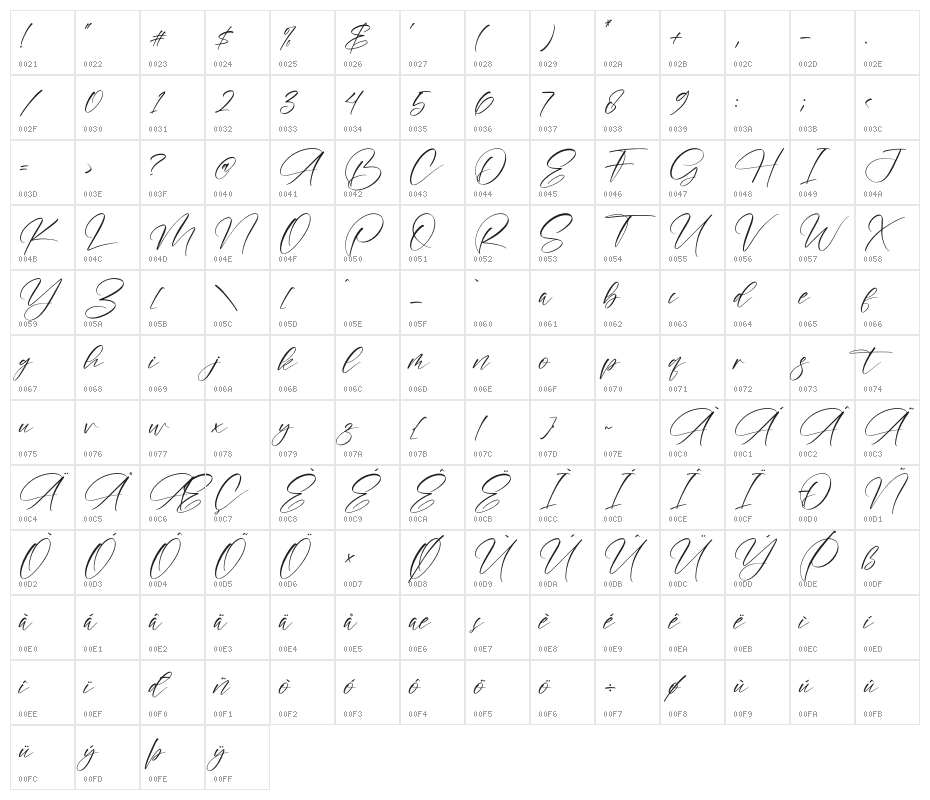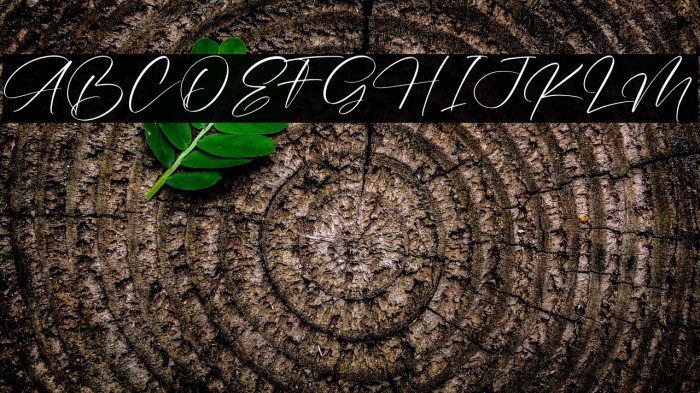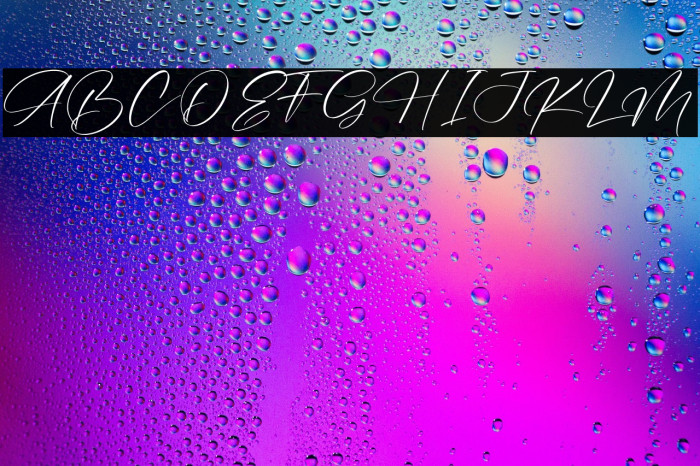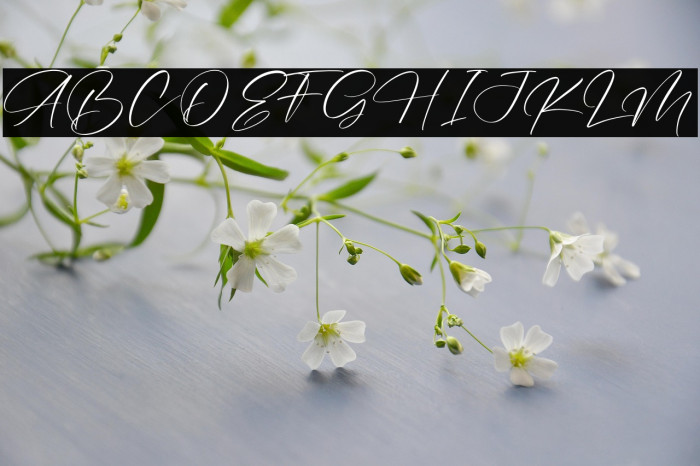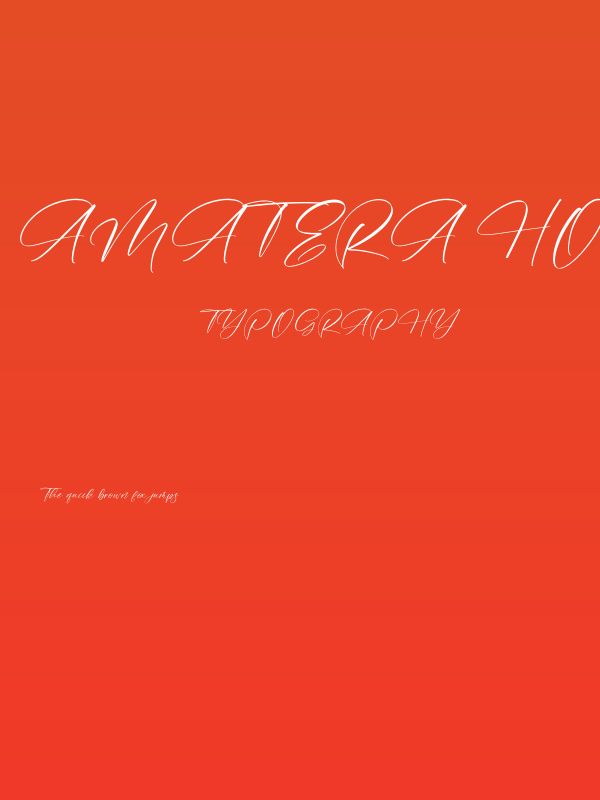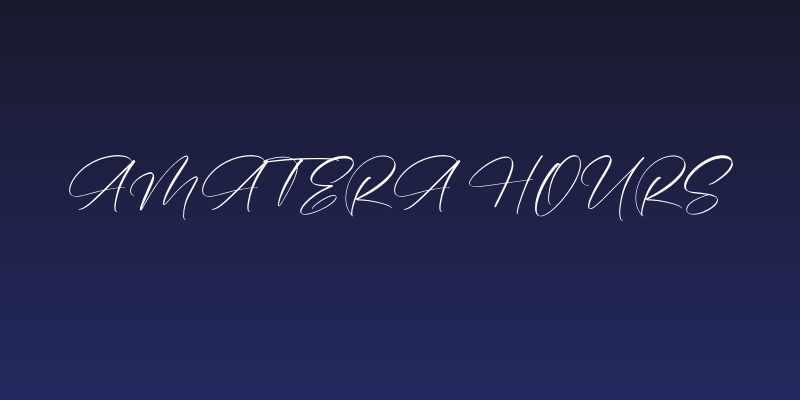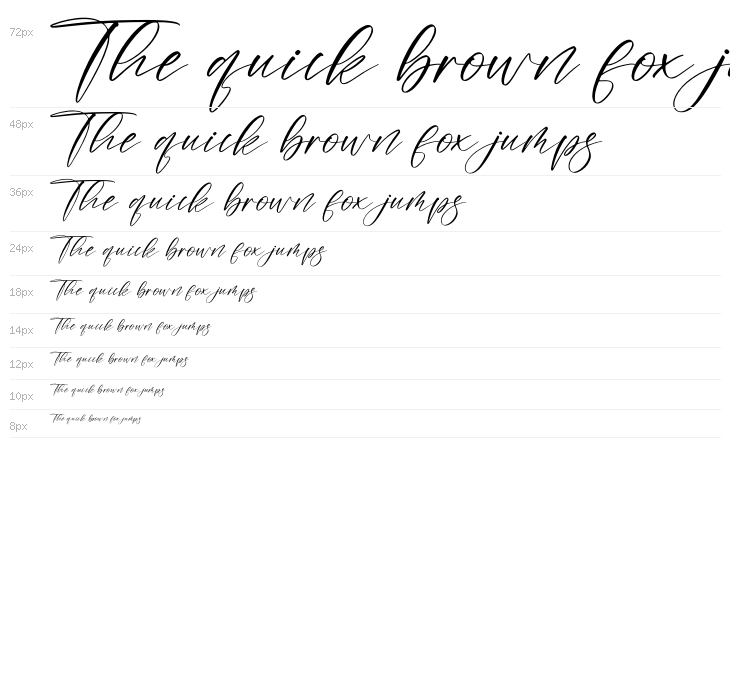
Amatera Hours Font
Amatera Hours Description
Elegant, flowing script with a handwritten appearance, featuring high contrast between thick and thin strokes and dynamic, sweeping letterforms. The characters are slightly slanted and connected, evoking a sense of movement and sophistication.
Overall StyleModern, Decorative, Elegant
Use CaseLogos, Headlines, Invitations, Decorative text
Proposed ProjectsWedding invitations, branding, greeting cards, social media graphics, elegant packaging.